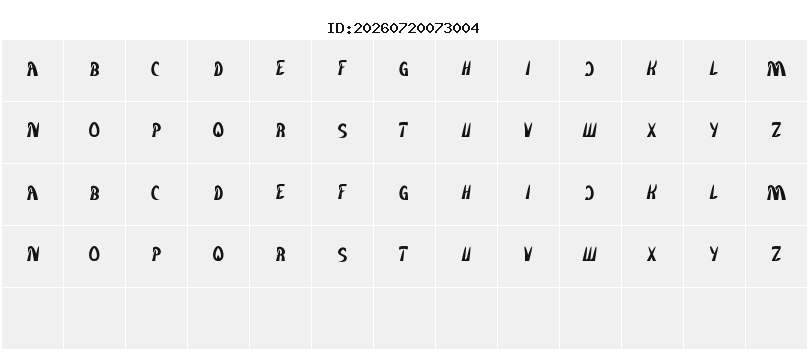
frozen ice Preview
• Font Name: frozen ice
About frozen ice.ttf
frozen ice.ttf is a modern, elegant sans-serif font designed for ultimate readability and visual harmony. Perfect for branding, headlines, web design, and print materials.